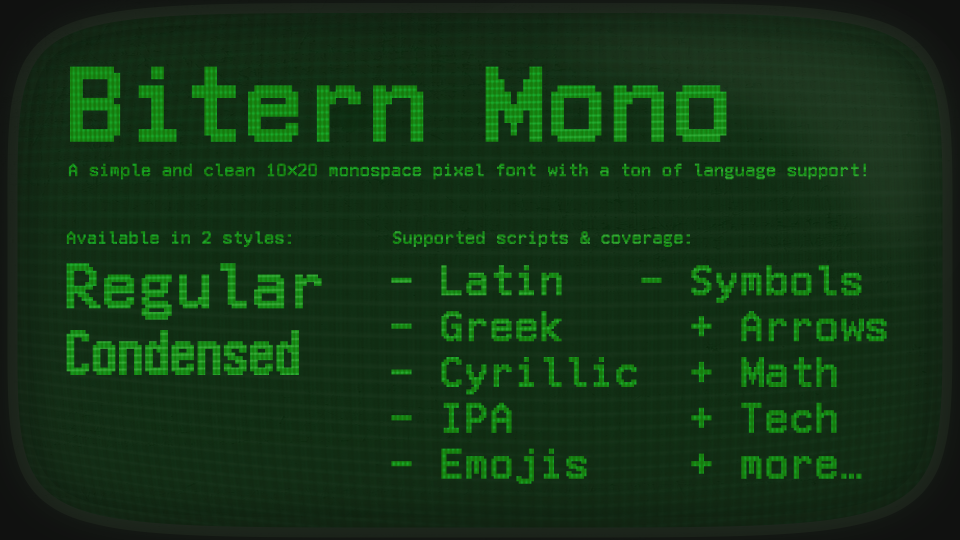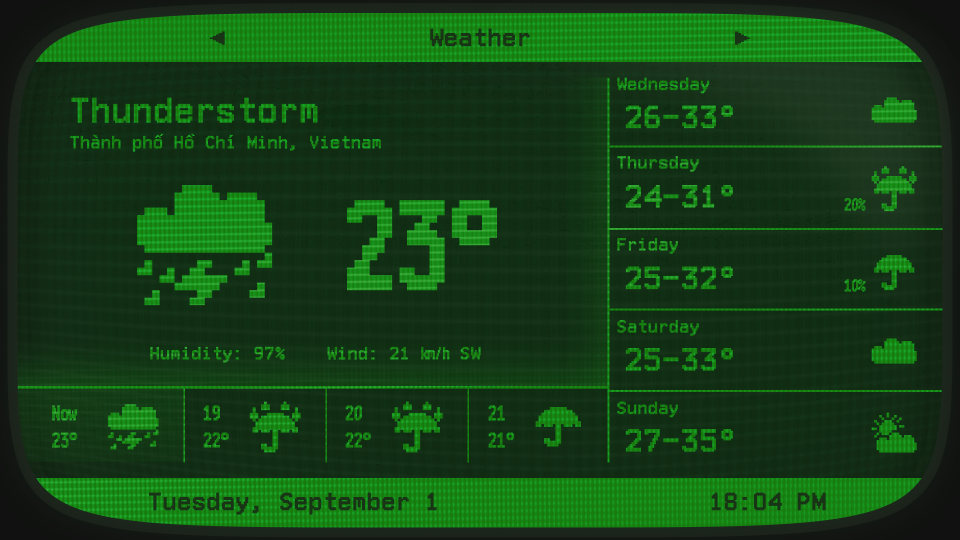
Great work again. Lovely dingbats at the end, and nice demo pics. 10/10
Okay, woah. I don't even know how this font is eligible for Staff Pick… The font is good-looking and has a lot of glyph coverage, sure. But besides that, there isn't really anything outstanding or notably creative about it. It is just a pixel font, and a generic one at that.
If the Staff Pick award was to be retracted, I honestly wouldn't really bother at all. I just don't really think that this font is necessarily worthy of the nomination. But then again, I'm okay if it's not possible to retract Staff Pick from a FontStruction, or if Rob Meek decides that this font is still worthy of Staff Pick.